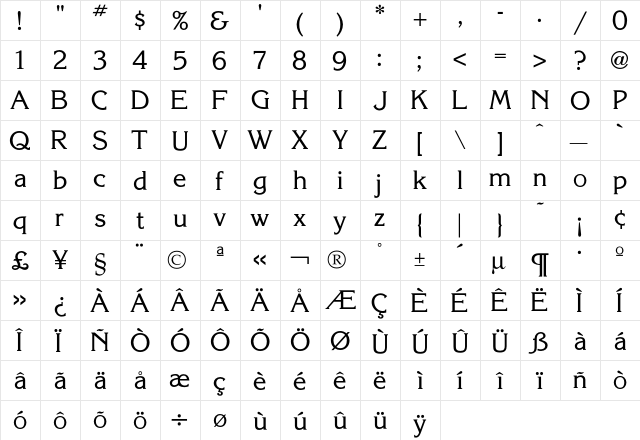
Korinna Regular
Design Context for Korinna Typeface
Korinna is a composed and adaptable typeface that performs quietly and consistently across a wide range of design contexts.
Pro Tip: Pair Korinna with a font of contrasting weight or personality to build a more expressive typographic hierarchy.